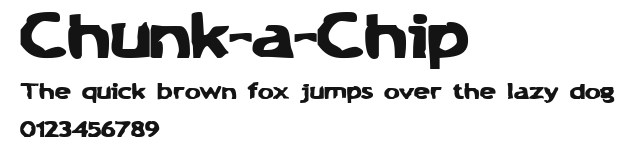
• Font Name: Chunk-a-Chip
• Full Font Name: Chunk-a-Chip
• PostScript Name: Chunk-a-Chip
• Character Count: 98
About Chunk-a-Chip.ttf
Chunk-a-Chip.ttf is a modern, elegant sans-serif font designed for ultimate readability and visual harmony. Perfect for branding, headlines, web design, and print materials.